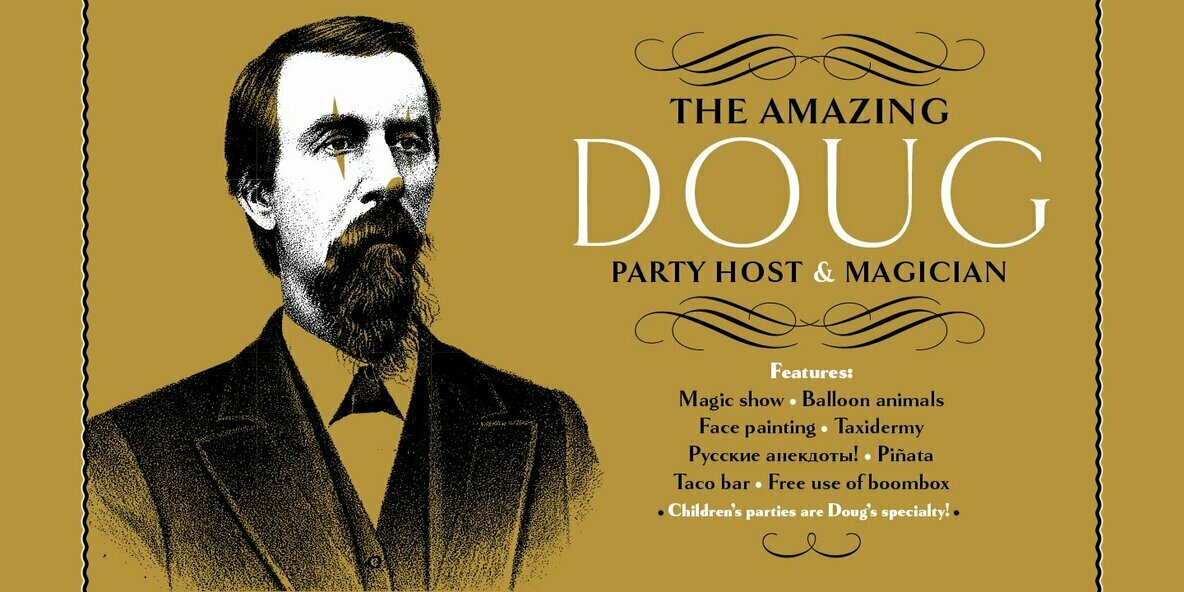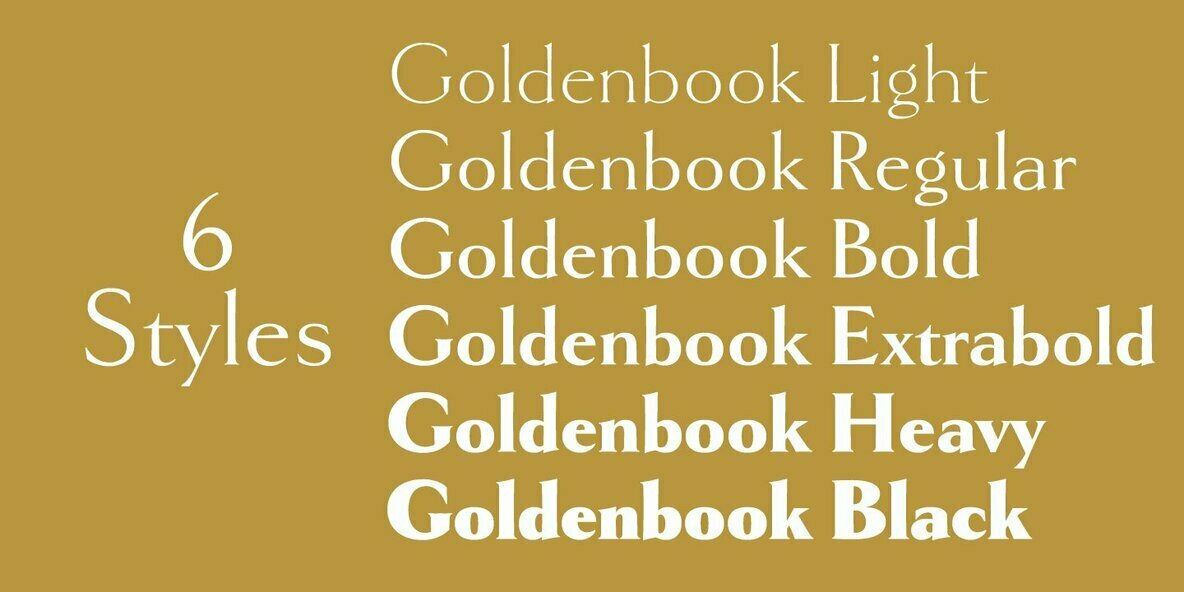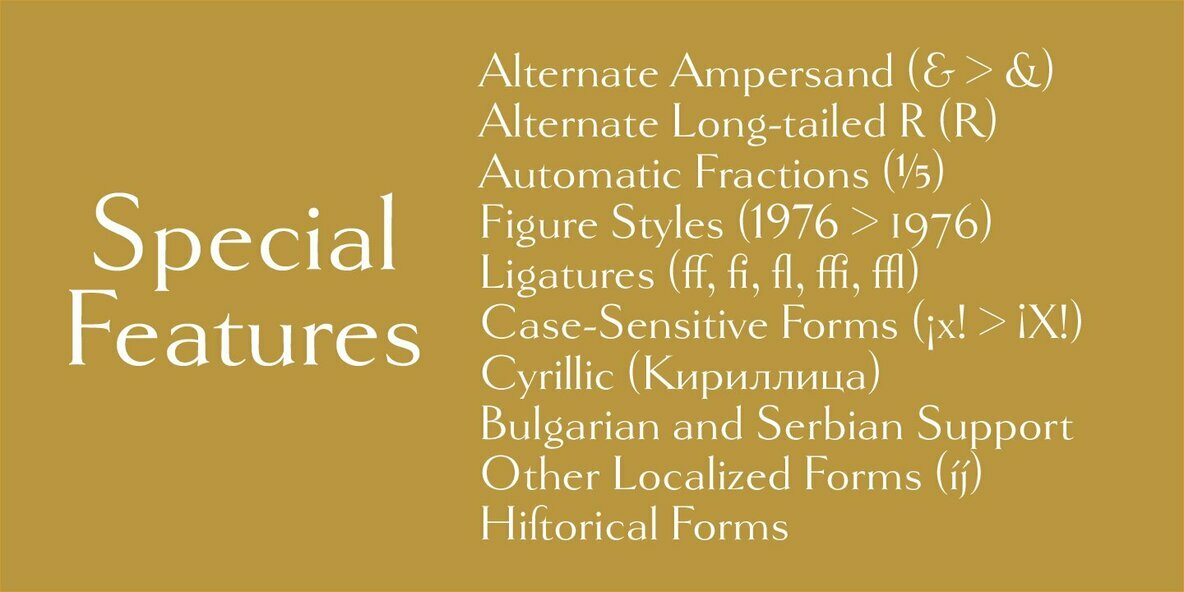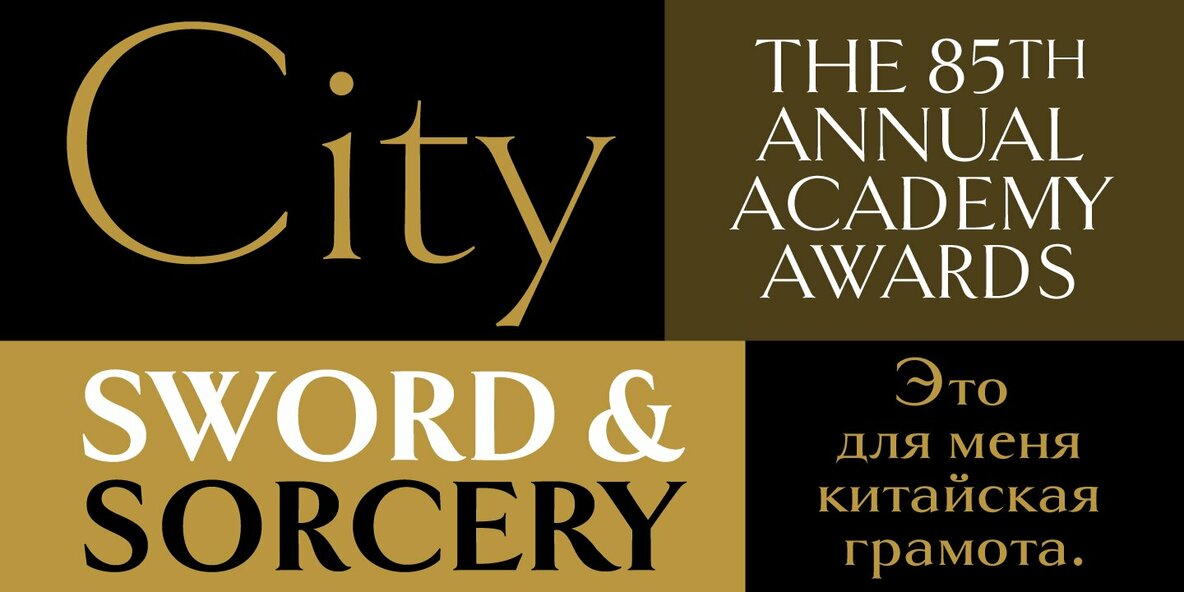
Goldenbook is based on the logotype of a literary magazine from the late 1920s called The Golden Book Magazine.
Goldenbook is based on the logotype of a literary magazine from the late 1920s called The Golden Book Magazine. It is meant to be used large and includes fonts with both old style and lining numerals in each weight.